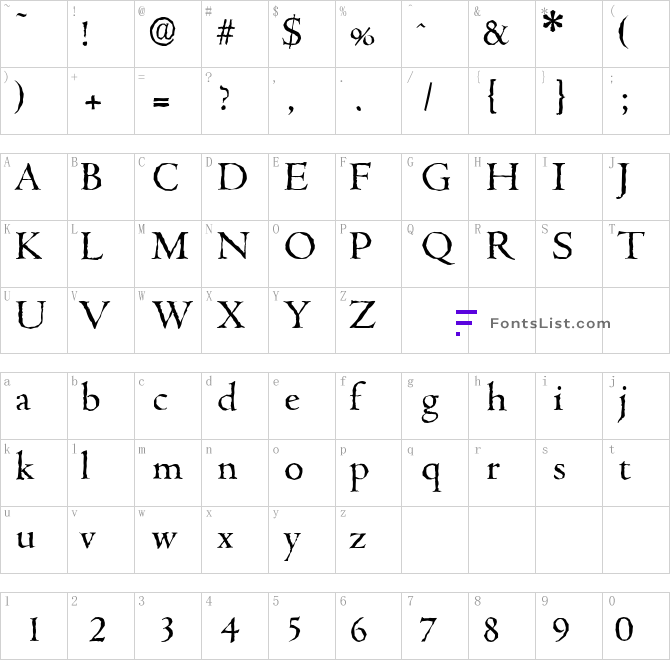
- Font Name:CambridgeAntique
CambridgeAntique-Regular.ttf is a very beautiful artistic font, CambridgeAntique-Regular.ttf is widely used in the design and printing of various books and pictures,CambridgeAntique-Regular.ttf has a strong visual impact,CambridgeAntique-Regular.ttf is a commonly used font in newspapers, magazines and books, and is used in posters, e-commerce Poster design, store design, logo design, font design and other fields.CambridgeAntique-Regular.